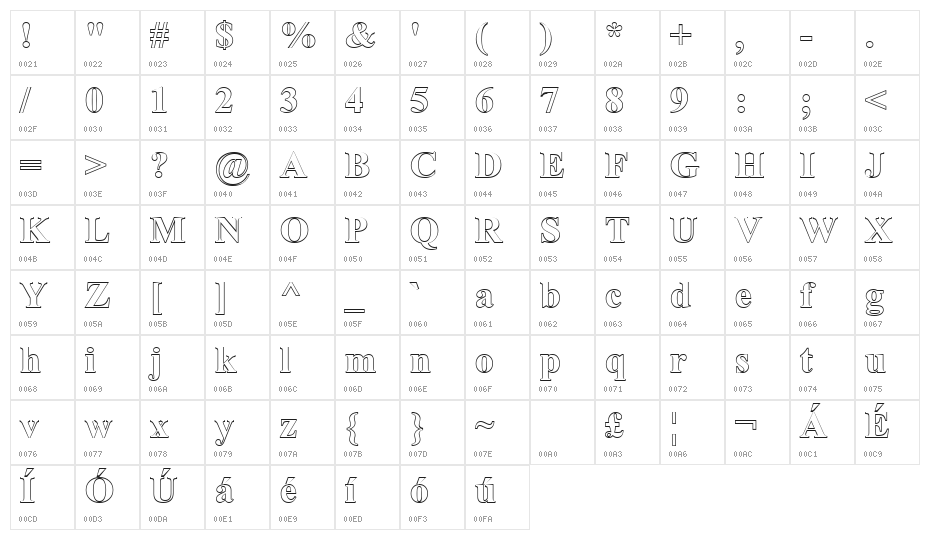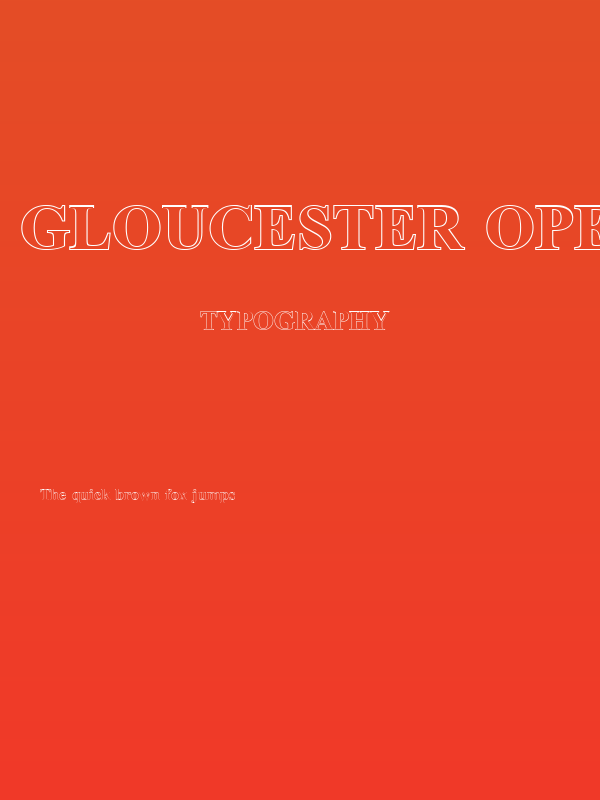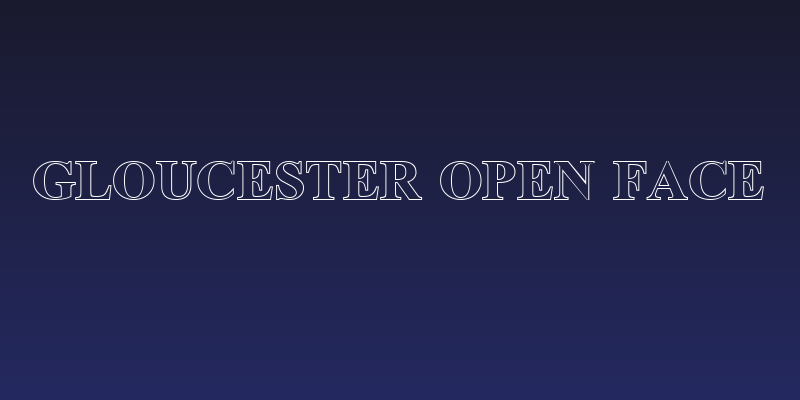
Gloucester Open Face Font
Gloucester Open Face Description
This font features a classic serif design with an open face style, providing a unique and elegant appearance. The letters are outlined, giving them a distinct and airy look, which makes them stand out without being overly bold. The uppercase and lowercase characters maintain a consistent style, with well-defined serifs and a balanced proportion. The numerals are clear and easy to read, matching the overall aesthetic of the alphabet. Special characters are included, maintaining the same open face design, making this font versatile for various uses. Its open structure allows for excellent readability, even at smaller sizes, while still offering a decorative touch.
| Proposed Projects | Ideal for headlines, posters, invitations, and branding materials where a touch of elegance is desired. |